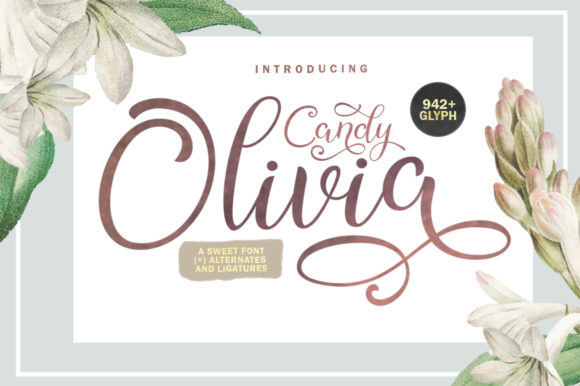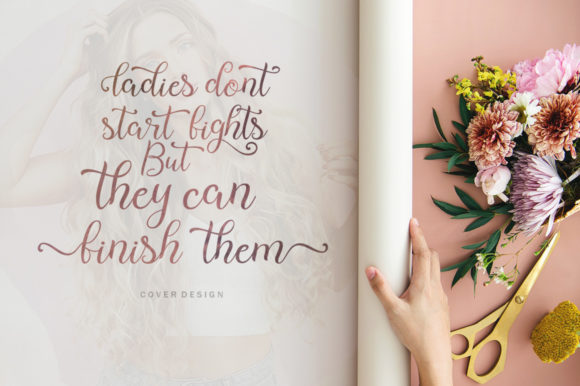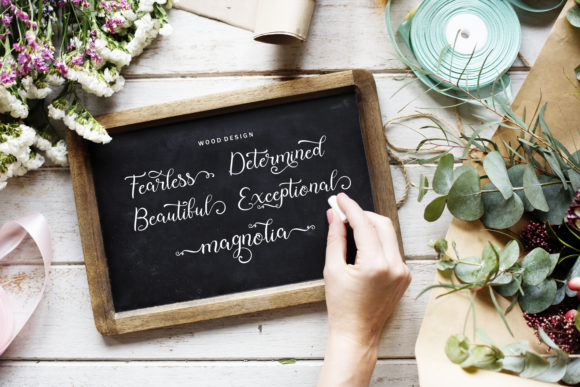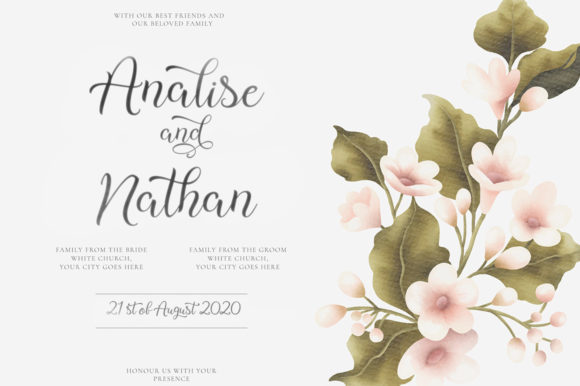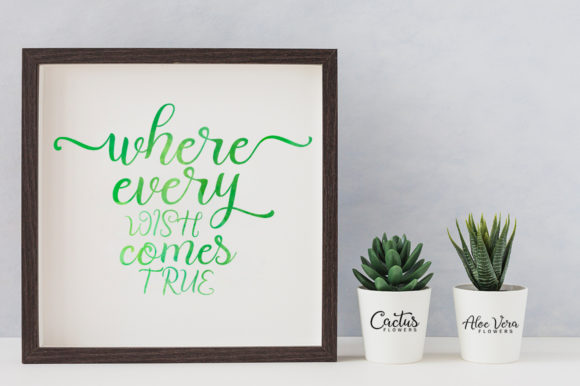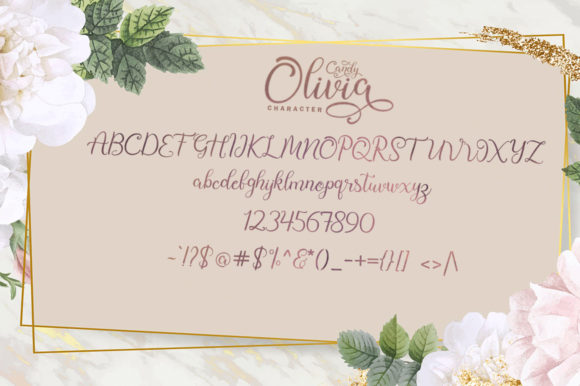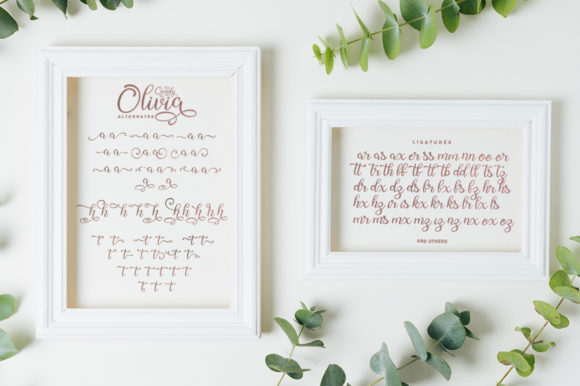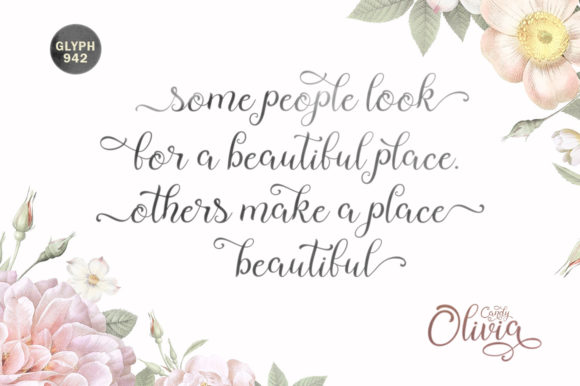
Candy Olivia Font
About Candy Olivia Font
Candy Olivia is a casual, fun handwritten font, created by using a brush pen. Clean and a little bit quirky, this font is the perfect fit for all of your logos, branding, social media, and crafty DIY projects.